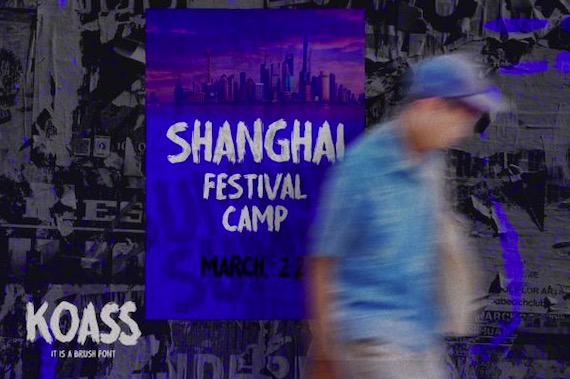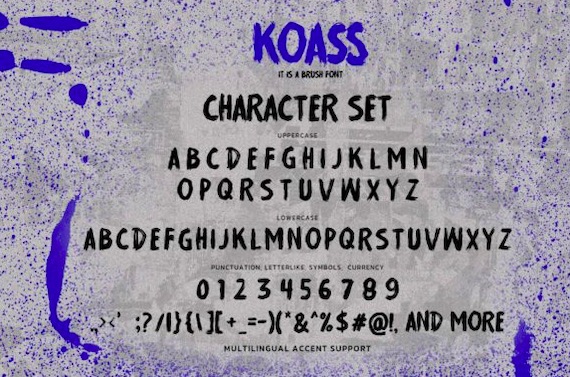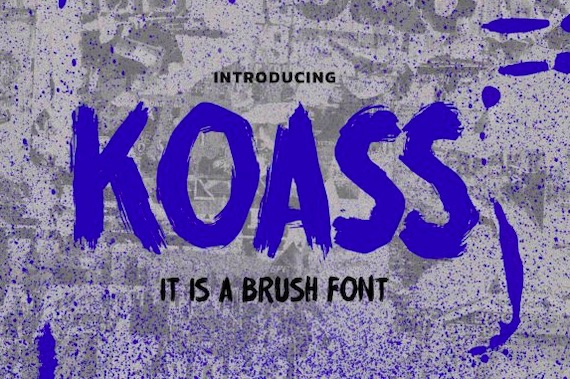
Koass is a modern fresh Display Font that was created and shared by Gassstype Studio. It has also a natural brushed style & looks with a naturally textured style, dramatic movement, and clear appearance. This script brush font is perfect for logos, printed quotes, invitations, cards, product packaging, headers, Logotype, letterheads, posters, watermarks on photography, advertisements, product designs, stationery, wedding designs, labels, product packaging, special events, or anything that needs an urban feel. Koass has charming, authentic, and relaxed characteristics that will add a more natural look to your text.
KOASS Display Font